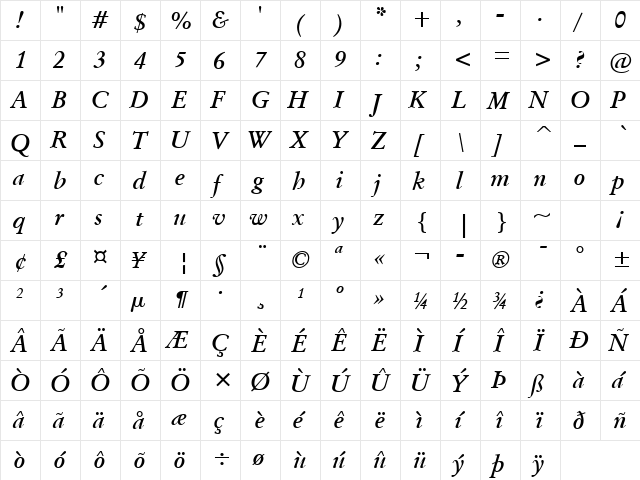
Garamand Classic Bold Italic Font Preview
Design Context for Garamand Classic Typeface
Garamand Classic has the warm character of retro typography — evoking diners, record sleeves, and the golden age of print advertising. The dynamic lean of this cut emphasises speed and emphasis in any layout. Its bold stroke weight gives it real presence on the page.
Perfect for vintage-inspired branding, retro packaging, nostalgia campaigns, and period-accurate editorial design.
Font Pairing: Combine Garamand Classic with a simple slab or neutral sans — period-accurate companions reinforce the vintage feel without competing for attention.
Pro Tip: Use Garamand Classic for headlines and pull quotes rather than body copy — its personality is best appreciated in short, focused bursts.